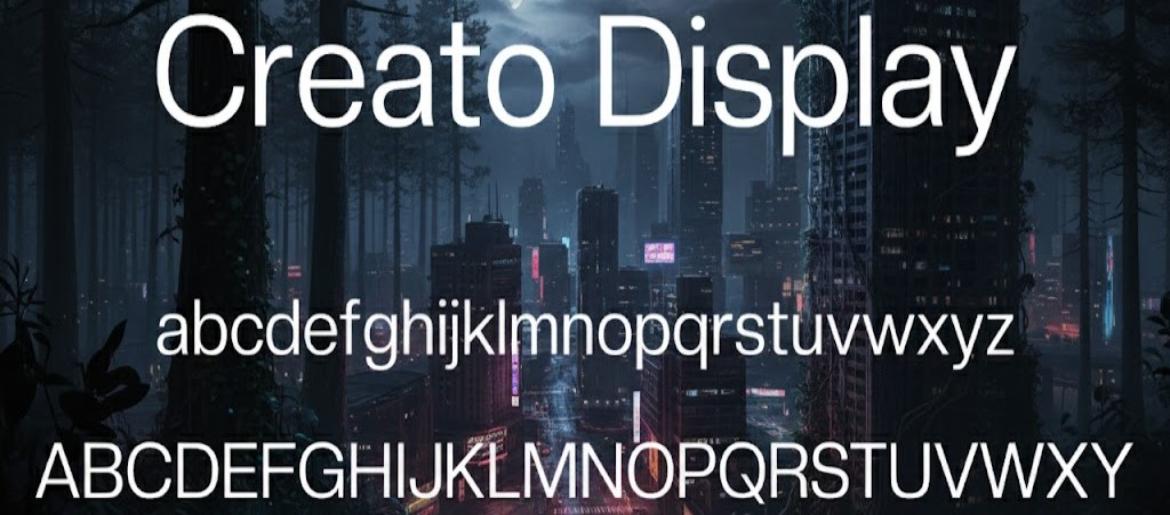
Creato Display Font
Creato Display Font is a bold, modern display typeface designed to make a strong visual impact. With its clean lines, geometric shapes, and confident letterforms, it’s ideal for headlines, logos, posters, branding, and packaging. Creato Display delivers a contemporary, professional look that commands attention and enhances visual communication.
➤ Font Name: Creato Display
➤ Designer: Lafontype
➤ Style: Sans serif